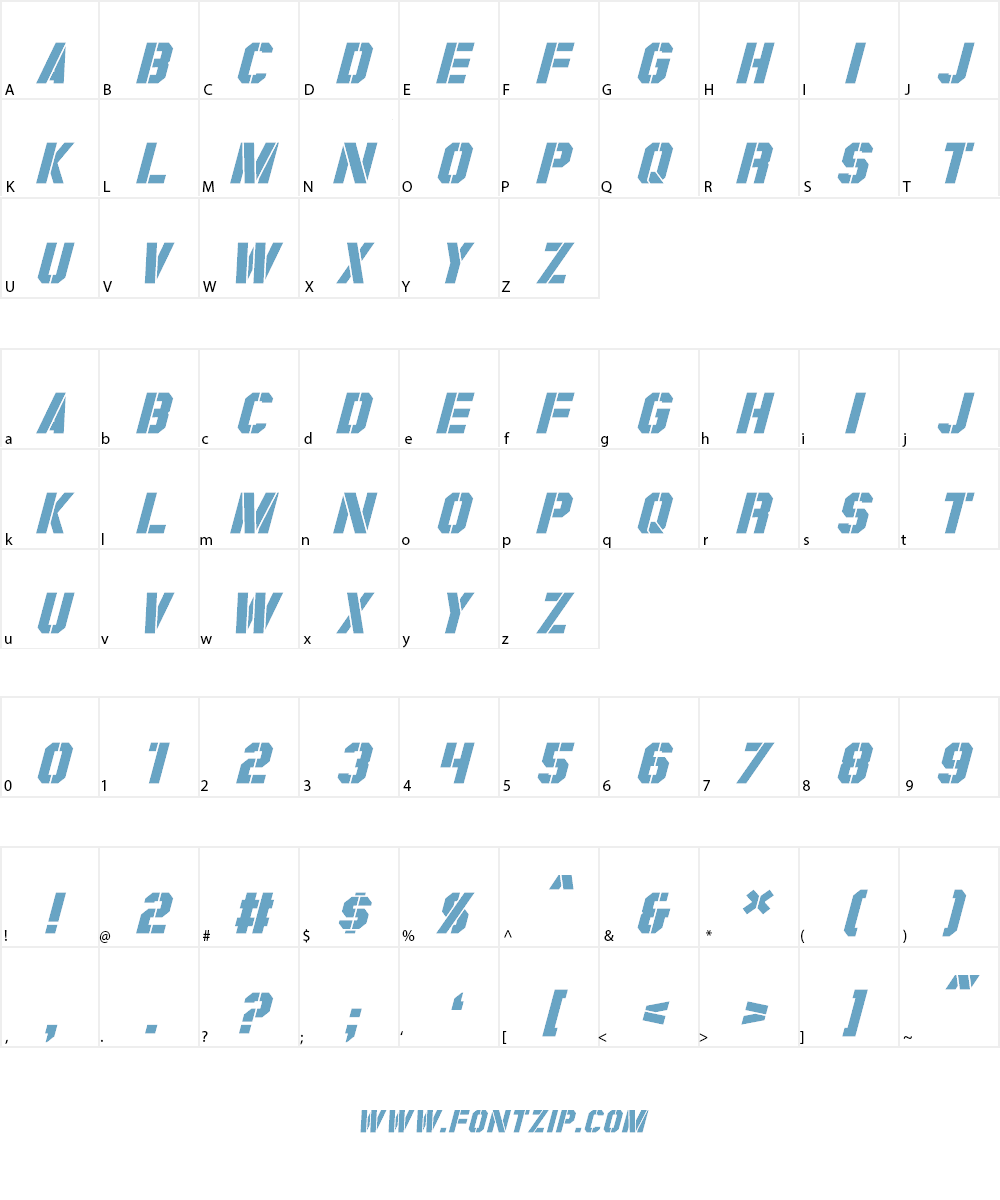
Coburn is a simple, bold, ‘military stencil’ typeface designed to invoke thoughts of spy missions and covert operations. Includes full alphabet, punctuation, extended character set, and Euro. Includes regular and italic versions. (Version 1.60)
Version 1.5
- Added oe and per-thousand glyphs
- Spacing cleanup
Version 1.6
- Corrected greater-than/less-than glyphs
- Updated some punctuation for clarity